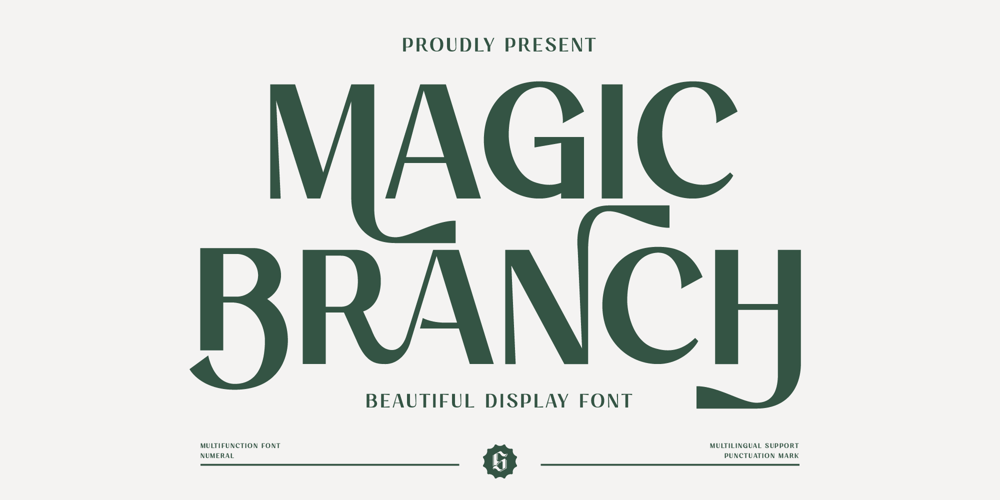
Magic Branch Font Family was designed by Guntur Septyan and published by GuseType. Magic Branch contains 1 styles and family package options. Magic Branch is a beautiful display fancy elegant font. This font can be used in a various of designs such as headlines, branding, cover, poster, logo, product tag and many more. Magic branch have a special character/alternate and ligature features that can be stylize your word and other font features like uppercase, lowercase, numeral, punctuation marks, multilingual support.